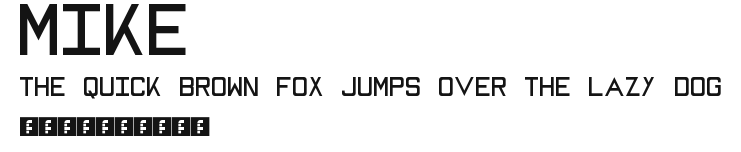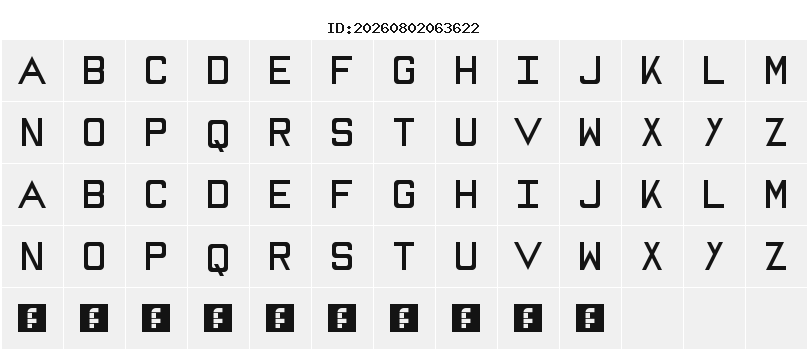
• Font Name: MIKE
• Designer: GeronimoFonts
• Description: ‚ÄúMIKE‚Äù was built with FontStruct
About MIKE.ttf
MIKE.ttf is a modern, elegant sans-serif font designed for ultimate readability and visual harmony. Perfect for branding, headlines, web design, and print materials.